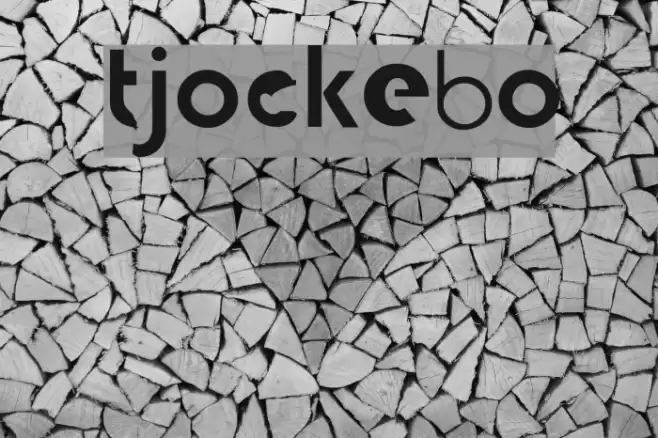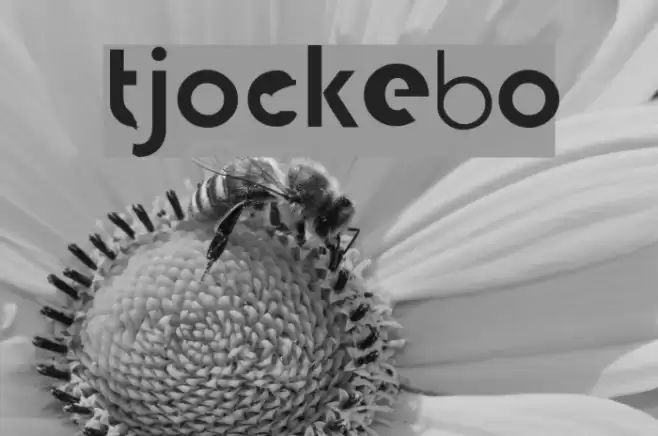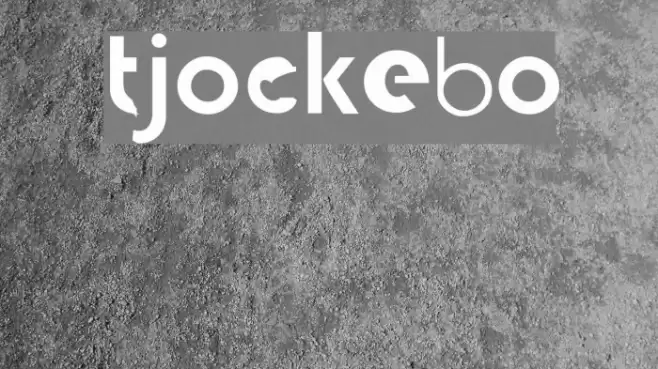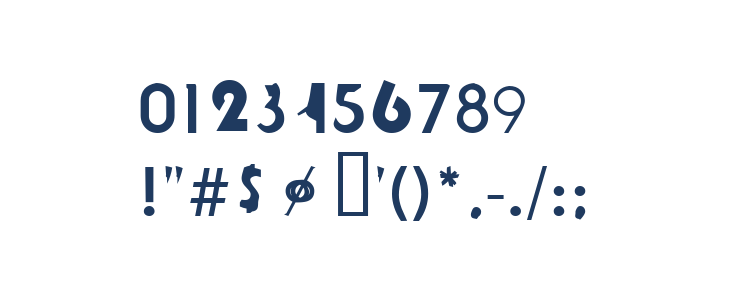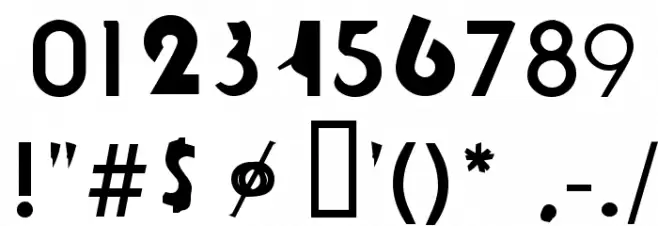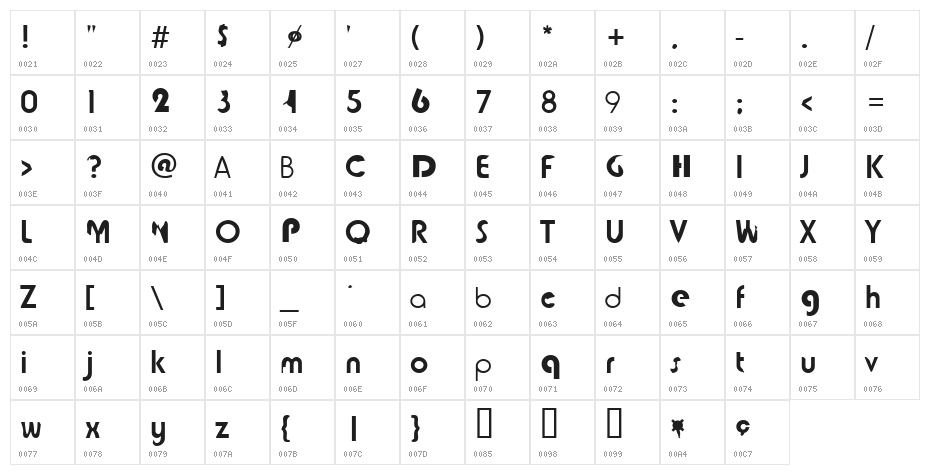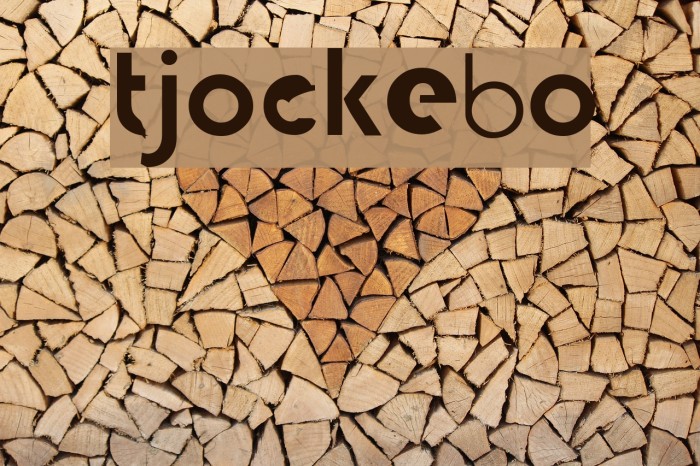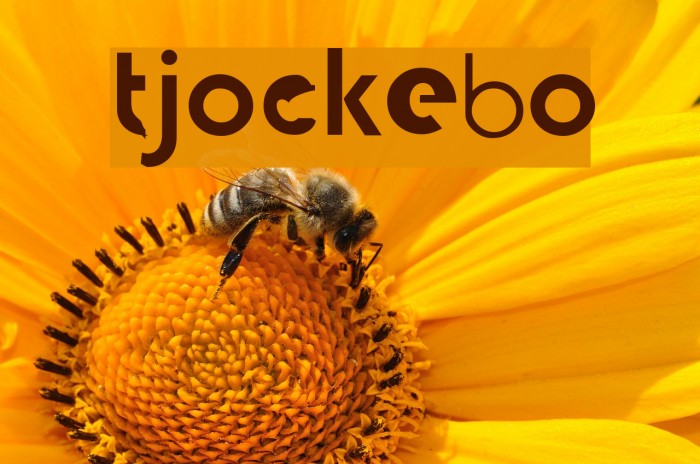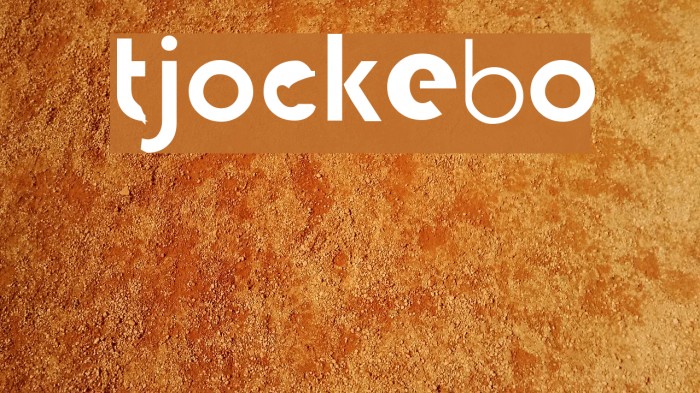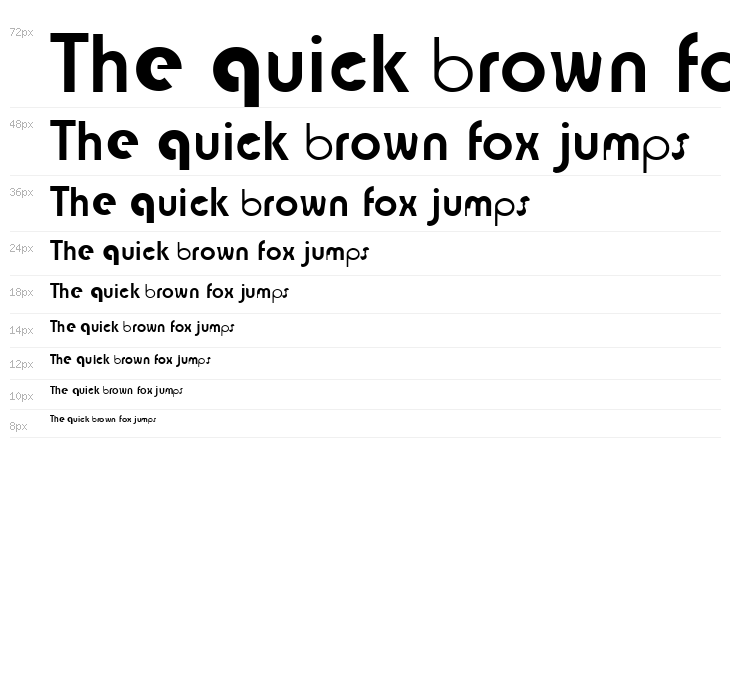
tjockebo Font
tjockebo Description
This font features a bold and playful design with a strong emphasis on geometric shapes. The uppercase letters are characterized by their thick strokes and unique, stylized forms, giving them a modern and artistic appearance. The lowercase letters maintain a consistent style, with rounded edges and a slightly condensed look. Numbers are bold and easily readable, while special characters are creatively designed to match the overall aesthetic. This font's distinct style makes it suitable for projects that require a touch of creativity and modernity.
A bold, geometric font with a playful and modern design from Uncategorized fonts.
- Proposed Projects: Ideal for branding, posters, and creative projects that require a modern and artistic touch.